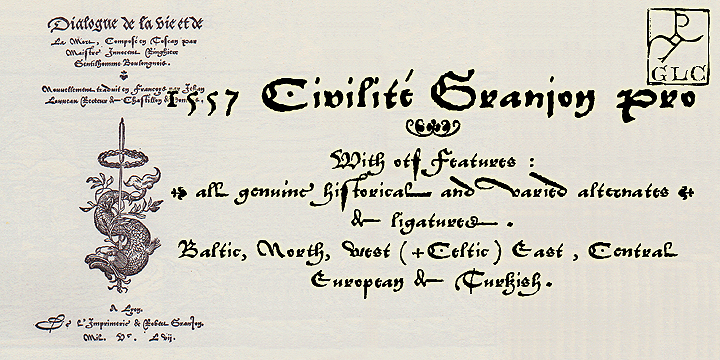
This historical typeface excels in various period-authentic applications including Renaissance document recreations, historical museum displays, antiquarian book reproductions, period drama titles, classical education materials, historical society publications, manuscript exhibitions, and heritage conservation projects. The 1557 Civilité Granjon Font faithfully reproduces Robert Granjon's revolutionary cursive typeface that defined French Renaissance typography and civilized written communication.
What makes this font truly exciting is its remarkable preservation of 16th-century French calligraphic traditions through meticulously researched letterforms that transport modern designs back to the golden age of typography. The historically accurate characters feature authentic Gothic cursive elements, period-specific ligatures, and the distinctive flowing style that made Granjon's work revolutionary in teaching proper handwriting to Renaissance society. Its distinctive personality combines scholarly authenticity with surprising readability, creating typography that serves both historical accuracy and contemporary usability.
The 1557 Civilité Granjon Font family includes historically-faithful variations: Regular weight with extensive historical alternates, contextual ligatures, and period-appropriate ornaments. Each character maintains the signature Renaissance cursive style while providing modern designers with authentic tools for creating historically accurate or period-inspired designs.